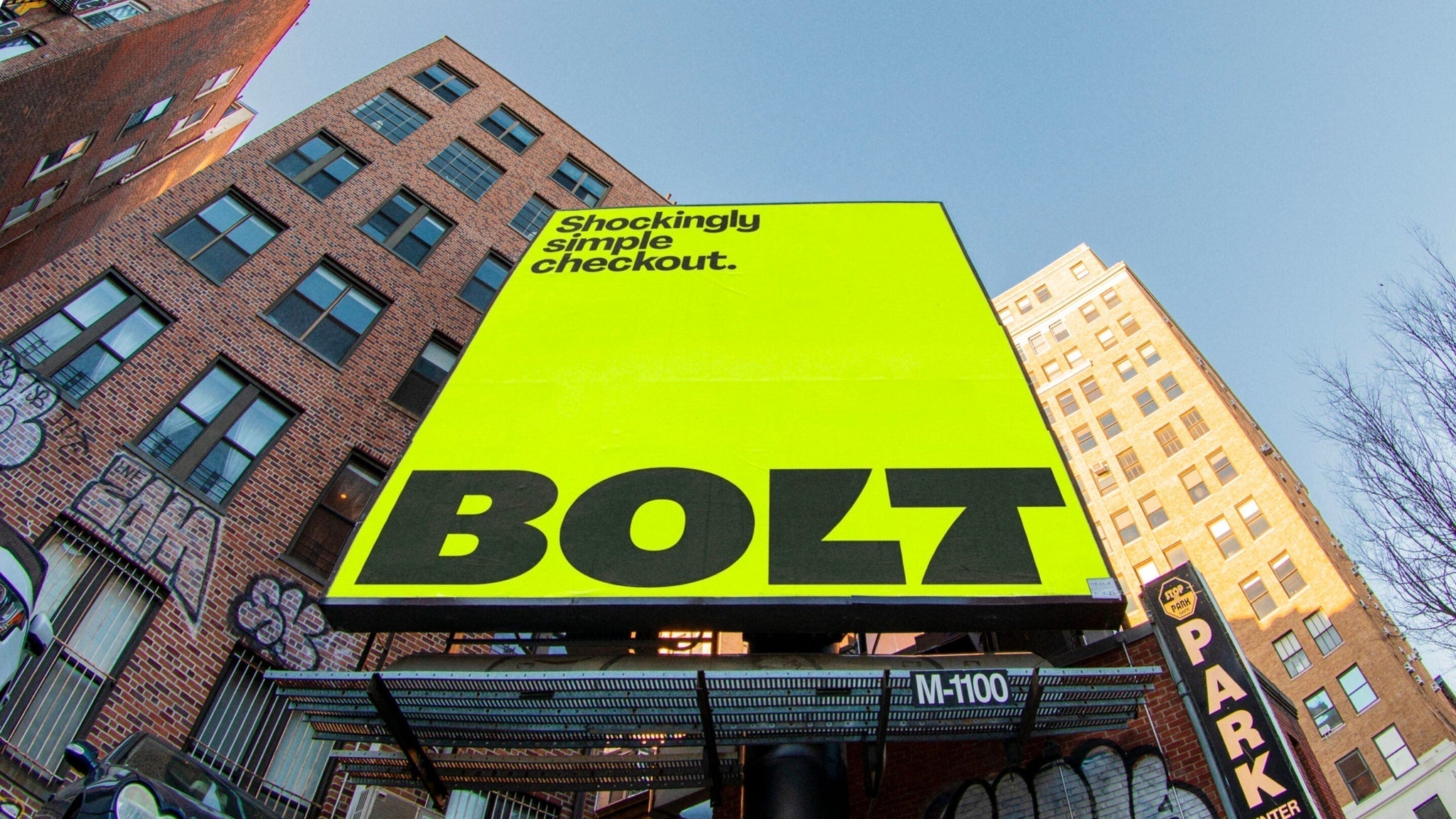
Before users interact with a product, website, or digital platform, typography has already begun communicating what a company stands for.
In an industry built around innovation, usability, and trust, the right typeface can make complex ideas feel accessible while creating a recognizable and cohesive brand identity.
Technology companies rely on typography to communicate complex ideas with clarity and precision. From user interfaces and dashboards to marketing sites and documentation, type is both a visual and functional tool. The best technology fonts need to perform across different environments, from small mobile screens to large displays, while maintaining clear hierarchy and consistency.
At the same time, technology brands need personality. Whether a company positions itself as cutting-edge, human-centered, or enterprise-focused, typography helps reinforce that message at every touchpoint.
Pangram Pangram's typefaces combine technical performance with distinctive design, giving technology brands the flexibility to create identities that are both functional and memorable.
Neue Gstaad
Neue Gstaad brings a refined and contemporary approach to technology branding. Its clean construction and balanced proportions make it particularly well suited to companies that want to communicate precision, sophistication, and confidence. It works seamlessly across websites, digital products, presentations, and corporate communications
Neue Corp
Neue Corp is built for versatility, making it an excellent choice for technology brands that need a consistent typographic system across multiple platforms. Its modern sans-serif character works across interfaces, marketing campaigns, documentation, and brand communications, while its range of styles gives designers plenty of flexibility.
Agrandir
Agrandir brings personality to the technology space. Its geometric forms and distinctive character make it particularly effective for startups, creative technology companies, and digital brands looking to stand apart from the typical tech aesthetic. It works especially well for headlines, landing pages, product launches, and campaign graphics.
Neue Montreal
Neue Montreal is one of Pangram Pangram's most versatile typefaces, making it a natural fit for technology and digital brands. Clean, balanced, and highly legible, it performs across interfaces, websites, branding, documentation, and marketing materials. Its neutral character provides a strong foundation for information hierarchy while allowing the rest of the brand identity to shine. From UI labels and navigation to headlines and body copy, Neue Montreal offers the consistency and clarity that modern technology products demand.
Monument
For technology brands looking to make a statement, Monument offers a much more commanding typographic voice. Inspired by the raw geometry of brutalist architecture, this bold grotesk combines strong proportions with a wide range of widths and weights.
Monument is particularly effective for technology companies working in creative software, gaming, hardware, AI, and emerging digital industries. Its powerful presence makes it ideal for campaign headlines, product launches, websites, and visual identities where typography needs to become part of the brand itself.
Built for the digital world
Technology brands operate across an enormous range of environments. A single typeface might appear on a mobile app, desktop dashboard, website, presentation, billboard, and product interface. This makes legibility, scalability, and consistency essential.
But functionality doesn't mean technology typography has to be boring. The strongest tech brands use typography to combine usability with personality, creating visual identities that feel as innovative as the products they represent.
Whether you're looking for clean technology fonts, modern SaaS typography, expressive startup fonts, or bold typefaces for digital products, Pangram offers a collection designed to support the demands of contemporary technology branding.